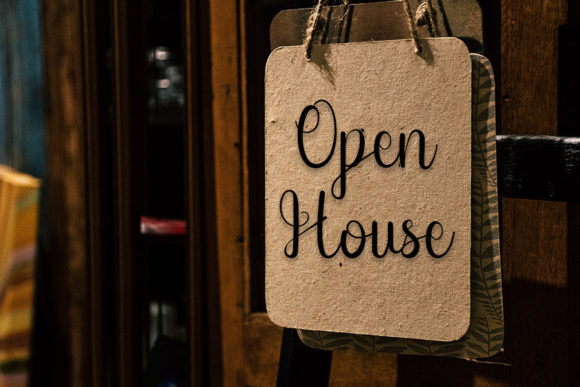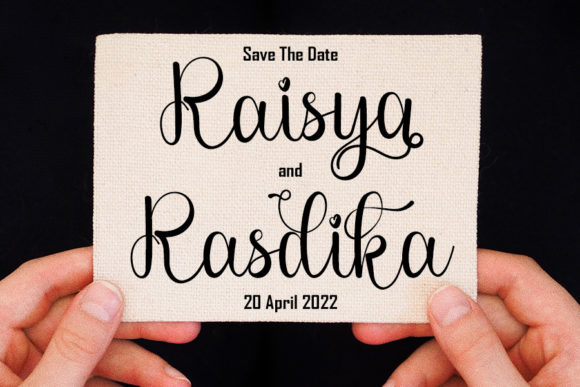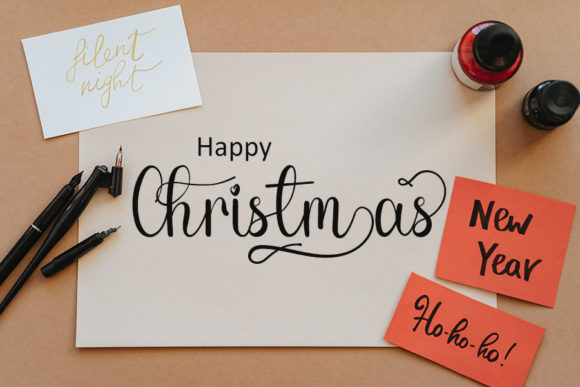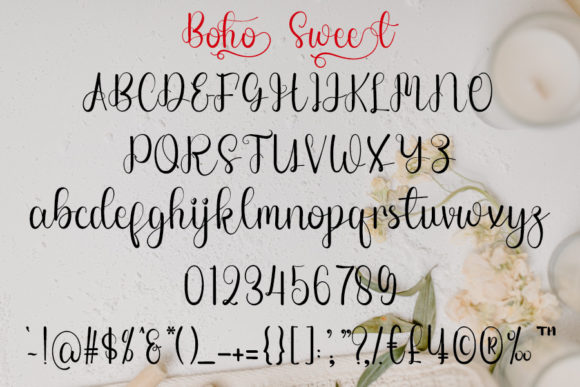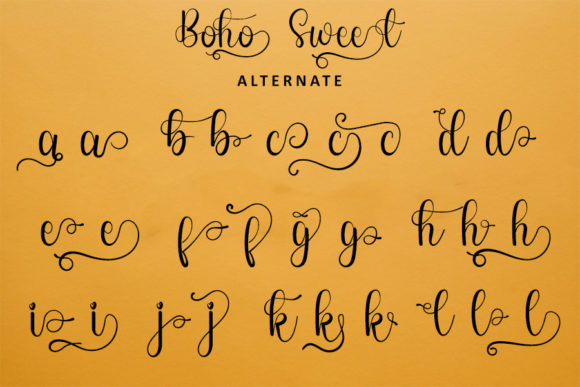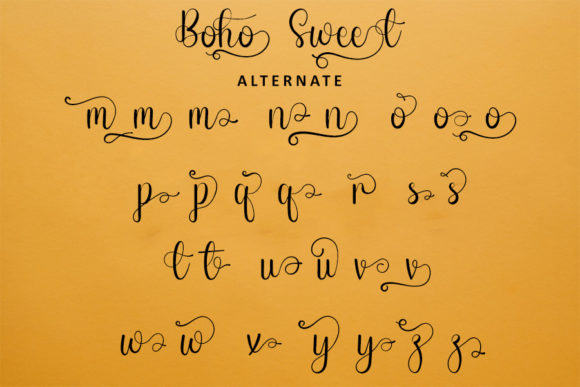
Introducing Boho Sweet Font: A Timeless Classic with a Contemporary Twist
Are you on the hunt for a font that exudes elegance, sophistication, and a touch of bohemian charm? Look no further than Boho Sweet Font, a beautifully crafted handwritten font that is sure to elevate your design projects to the next level. Inspired by timeless classic calligraphy, Boho Sweet boasts a well-balanced and contemporary atmosphere, making it perfect for a wide range of applications.
The Perfect Blend of Classic and Modern
Boho Sweet Font is a masterful blend of traditional calligraphy and modern design. Its elegant strokes, impeccable form, and flowing lines evoke a sense of nostalgia, while its clean and crisp aesthetic ensures it remains firmly rooted in the present. This font is perfect for designers and crafters who want to add a touch of sophistication and whimsy to their work.
One of the standout features of Boho Sweet Font is its PUA (Private Use Area) encoding. This means that you can access all of the amazing glyphs and ligatures with ease, giving you unparalleled creative control over your design projects. Whether you’re working on a logo, branding materials, or a full-scale design project, Boho Sweet Font provides the flexibility and versatility you need to bring your vision to life.
So, where can you use Boho Sweet Font? The answer is: almost anywhere! This incredibly versatile font is suitable for a wide range of design projects, including:
• Logos and branding materials
• Stationery and invitations
• Web design and development
• Print-on-demand products and crafts
• Packaging and product design
Whether you’re designing for digital or print, Boho Sweet Font is sure to make a lasting impression.
What Sets Boho Sweet Font Apart?
So, what makes Boho Sweet Font so special? Here are just a few key features that set it apart from other fonts:
• Handwritten with love: Boho Sweet Font is a carefully crafted handwritten font, imbued with a sense of personality and charm.
• Contemporary atmosphere: This font boasts a clean and modern aesthetic, ensuring it remains relevant in today’s fast-paced design landscape.
• PUA encoded: With PUA encoding, you can access a wide range of glyphs and ligatures, giving you unparalleled creative control.
• Timeless classic inspiration: Boho Sweet Font draws inspiration from timeless classic calligraphy, ensuring it remains a stylish and sophisticated choice for years to come.
Get Ready to Fall in Love with Boho Sweet Font
In conclusion, Boho Sweet Font is a stunning handwritten font that offers the perfect blend of classic and modern design. With its PUA encoding, beautiful glyphs, and ligatures, this font provides endless creative possibilities for designers and crafters. Whether you’re working on a logo, branding materials, or a full-scale design project, Boho Sweet Font is sure to impress. So why not give it a try? Download Boho Sweet Font today and experience the magic for yourself!